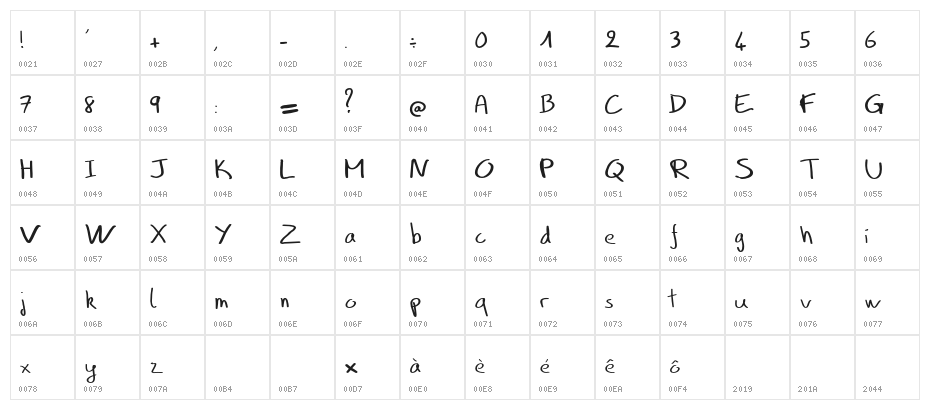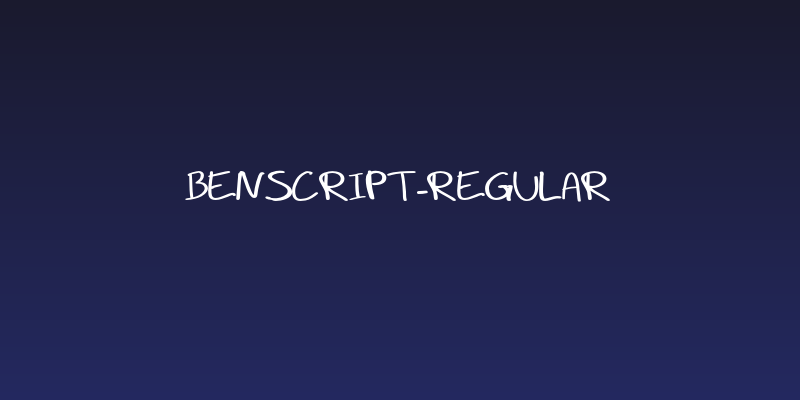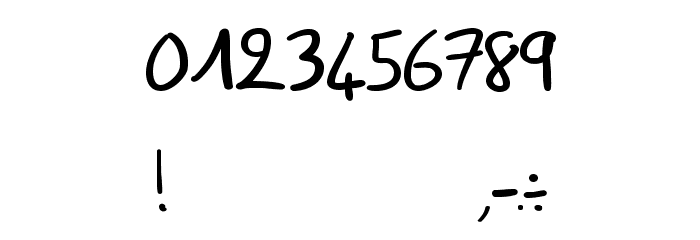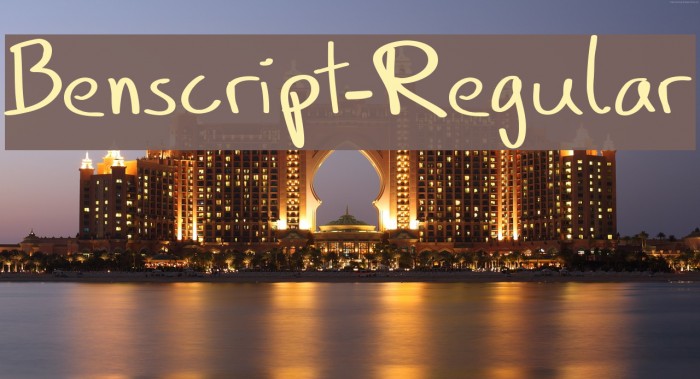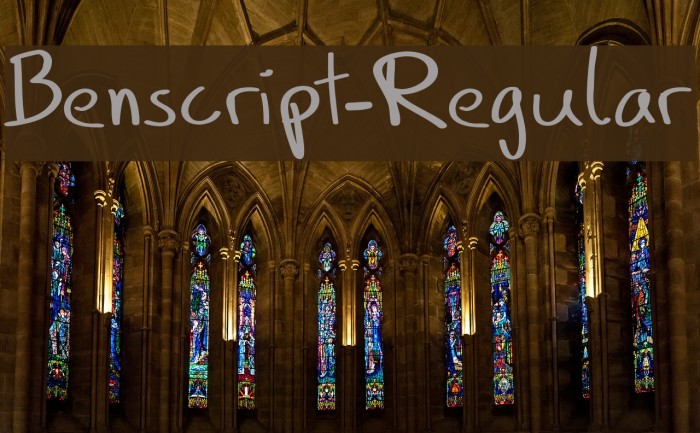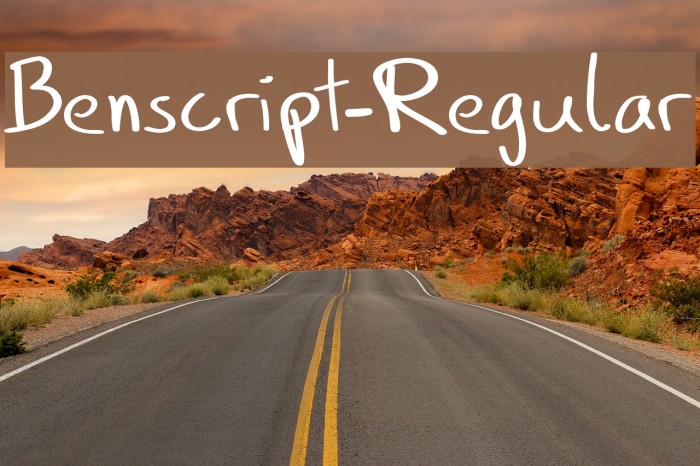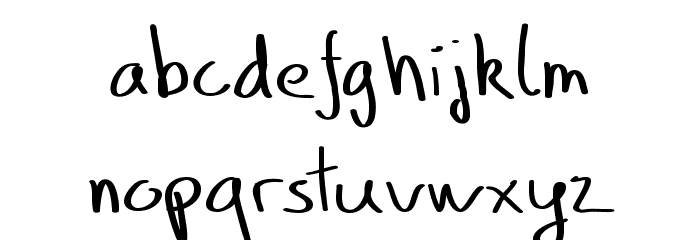
Benscript-Regular Font
Benscript-Regular Description
This font features a casual, handwritten style with a playful and informal appearance. The letters are slightly slanted, giving a dynamic and lively feel. The strokes are smooth and consistent, with a medium thickness that maintains readability while adding a personal touch. The uppercase and lowercase letters are well-balanced, and the numerals are clear and distinct. Special characters are included, enhancing its versatility for various uses. The overall look is friendly and approachable, making it suitable for projects that require a personal or creative touch.